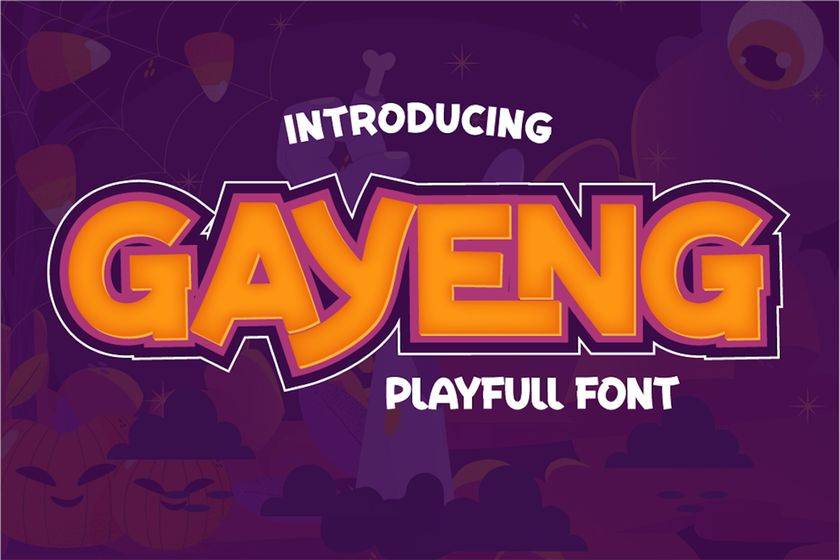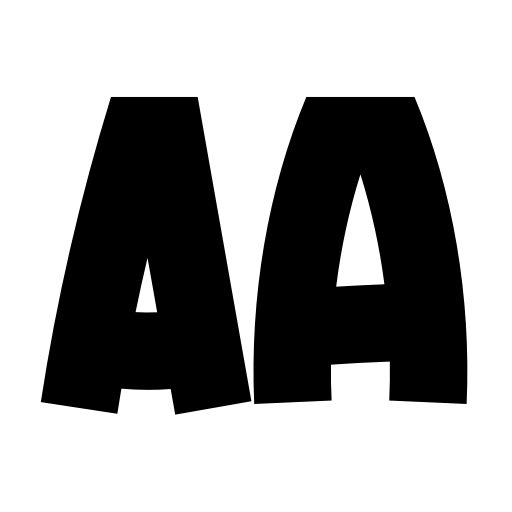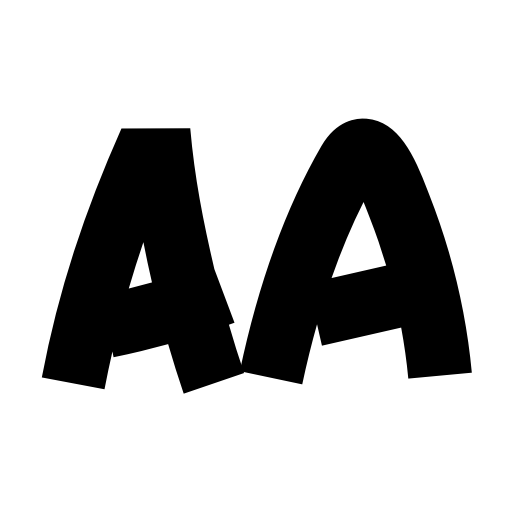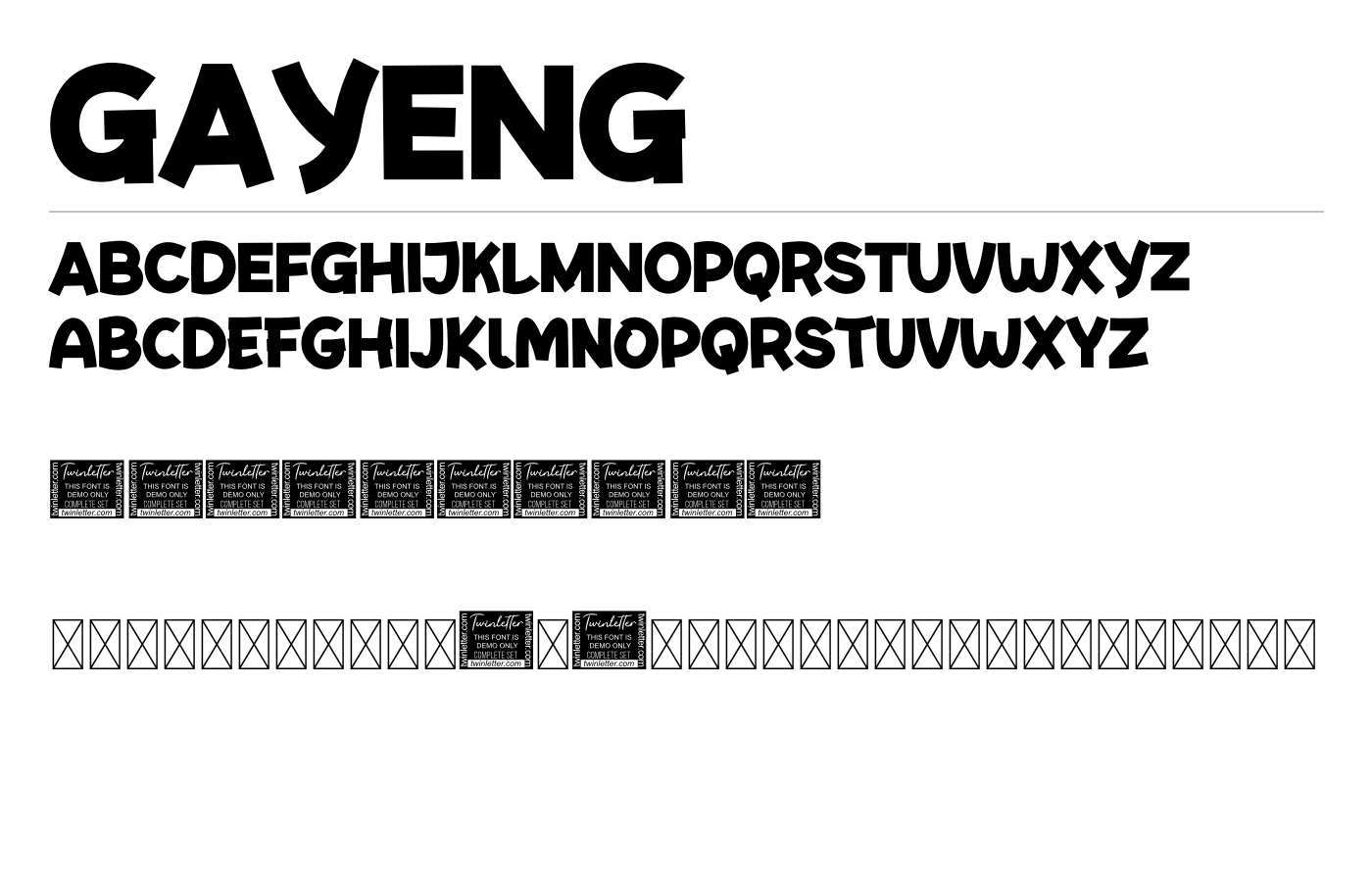
Gayeng is a bold, playful sans serif font with a strong, chunky appearance and slightly irregular letterforms that add a fun, quirky charm. Its wide, heavy strokes and tight spacing make it perfect for attention-grabbing headlines, logos, and branding that seek an energetic and informal vibe. This font works well in creative or casual contexts where a bold, friendly personality is desired.
Gayeng Font
About Gayeng Font
| Font family | Gayeng Font |
| Designer | ROZI |